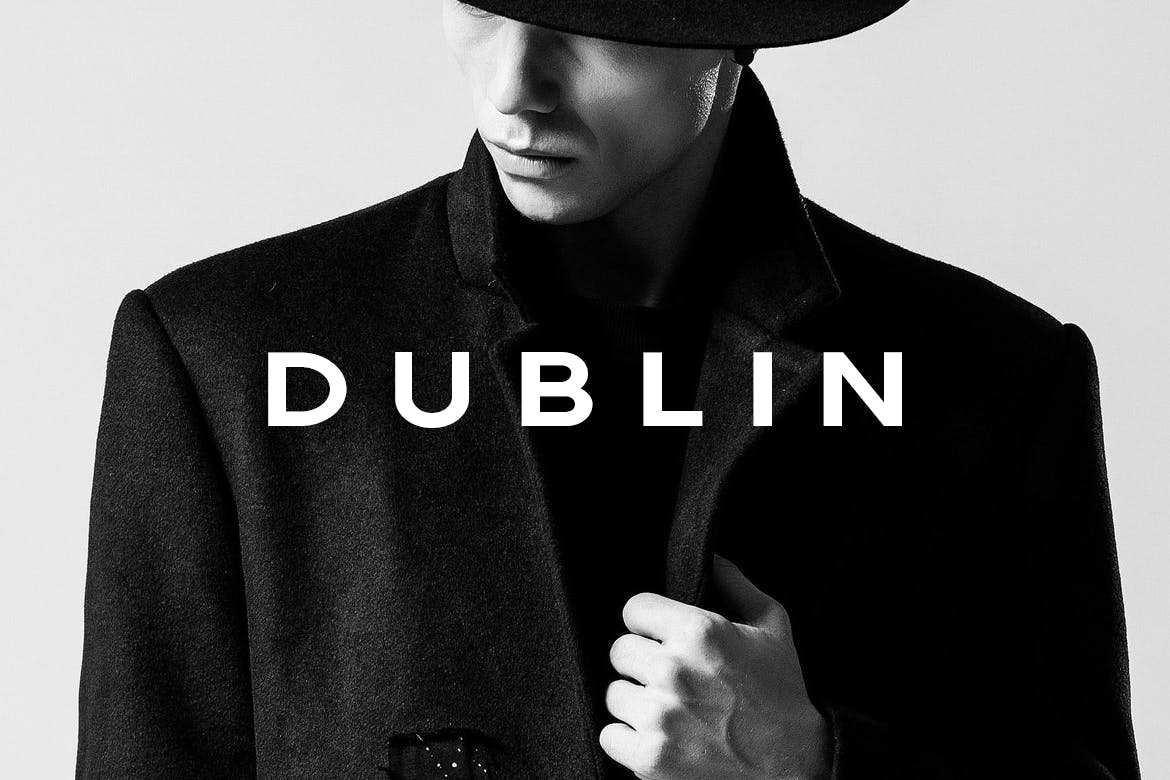
DUBLIN - Minimal Display / Headline Typeface Font
The DUBLIN - Minimal Display / Headline Typeface Font is perfect for editorial magazine headlines, sophisticated brand identities, modern architectural signage, clean corporate communications, contemporary web headers, elegant poster designs, minimalist packaging systems, professional presentation layouts, refined advertising campaigns, and sleek digital interfaces.
What makes the DUBLIN - Minimal Display / Headline Typeface Font so exciting is its masterful embodiment of contemporary minimalism with commanding display presence that creates maximum visual impact through sophisticated simplicity and refined elegance. This exceptional typeface features clean geometric construction, perfectly balanced proportions, and subtle design refinements that establish an unmistakable modern aesthetic ideal for brands demanding clarity, sophistication, and timeless contemporary appeal. The font's minimal personality and display optimization make it an outstanding choice for projects requiring powerful headline impact, professional credibility, and elegant visual communication with enduring design quality.
The DUBLIN - Minimal Display / Headline Typeface Font family includes comprehensive weight variations, featuring Light, Regular, Medium, Semi-Bold, Bold, and Black options, plus condensed and extended versions. Each weight maintains the signature minimal appeal while offering different levels of visual presence and typographic impact, providing designers with complete flexibility for creating sophisticated headline hierarchies and contemporary brand systems.
The precise geometric engineering of DUBLIN - Minimal Display / Headline Typeface Font demonstrates expert minimal typography craftsmanship, with each character optimized for perfect optical balance, exceptional headline legibility, and clean visual harmony across all display applications. The font's comprehensive character set includes international language support, advanced OpenType features, minimal punctuation, and display-optimized spacing, ensuring seamless integration into global projects and professional headline workflows.
Expertly crafted for both digital and print display applications, this outstanding font maintains perfect clarity and visual consistency across all media formats and headline sizes. From large-scale environmental graphics to detailed editorial headlines, DUBLIN - Minimal Display / Headline Typeface Font performs flawlessly while preserving its distinctive minimal character and contemporary display sophistication.